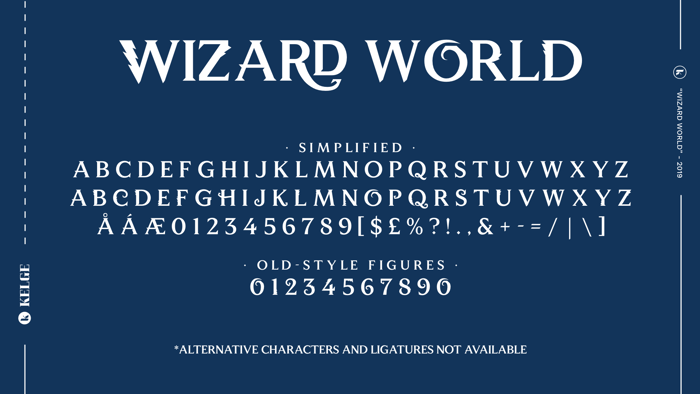
Wizard World Font
by KELGE Fonts
About Wizard World Font
Enter a world of magic. From the story of a boy wizard, to a case of beasts and beyond, the wizard world will always be there to welcome you home.